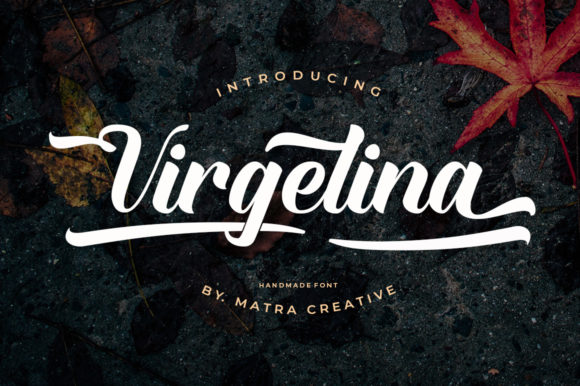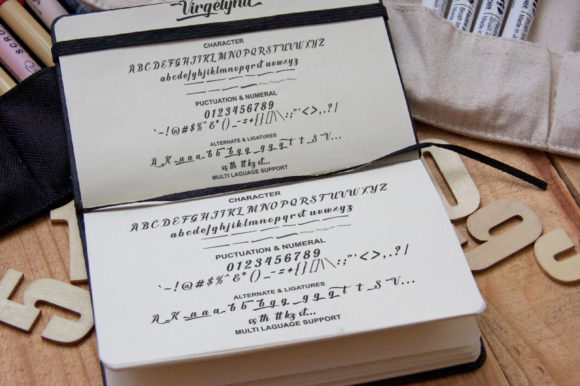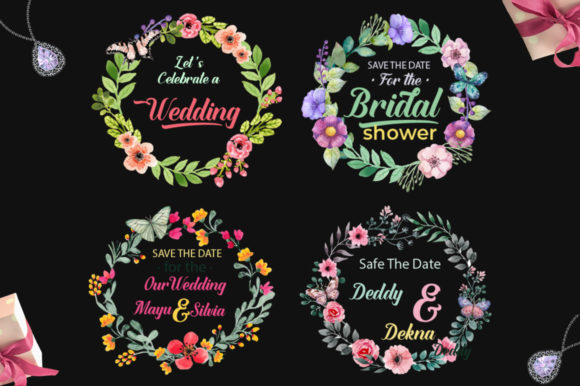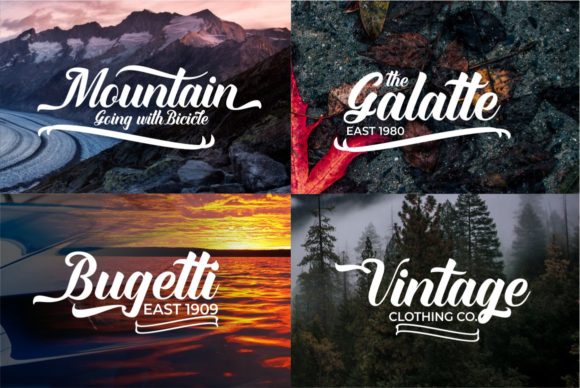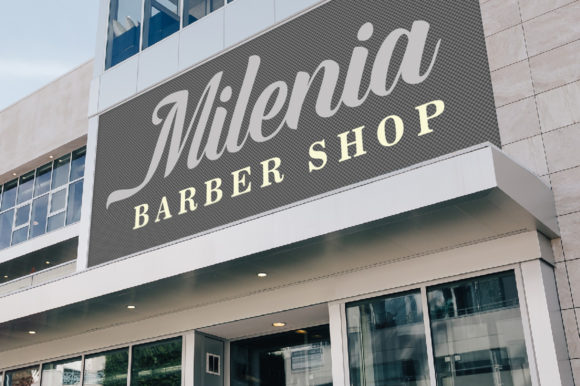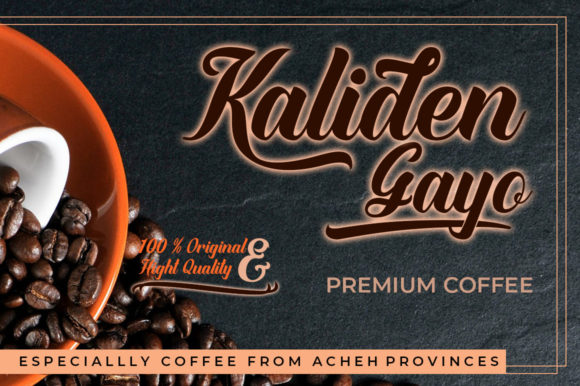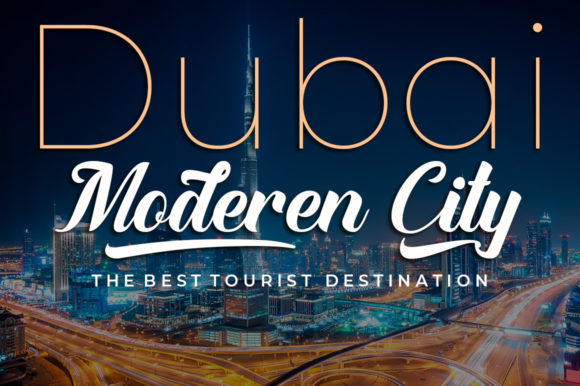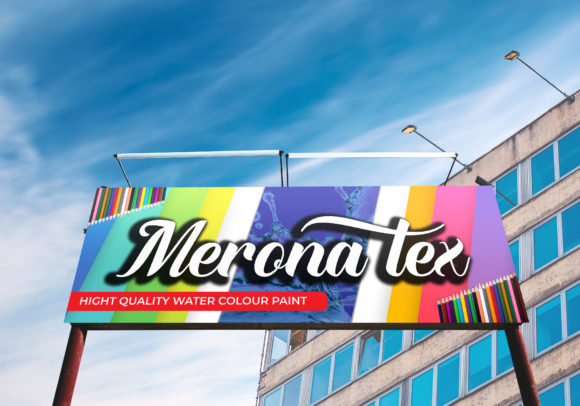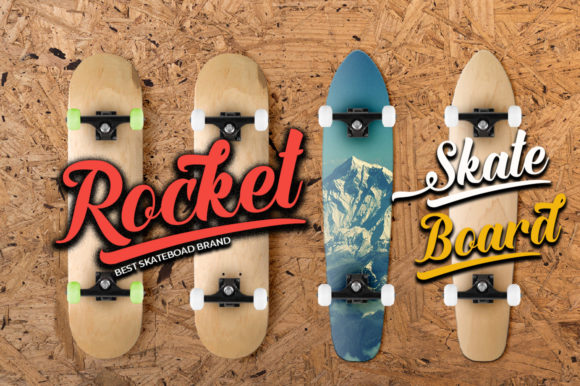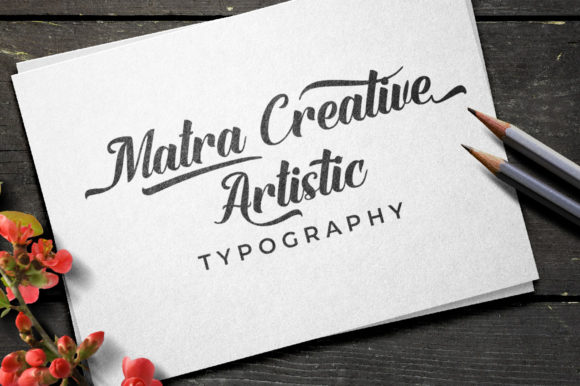
About Virgelina Font
The Virgelina is a handmade calligraphy font. It has a striking, yet elegant look which makes it perfect for making your design stand out.